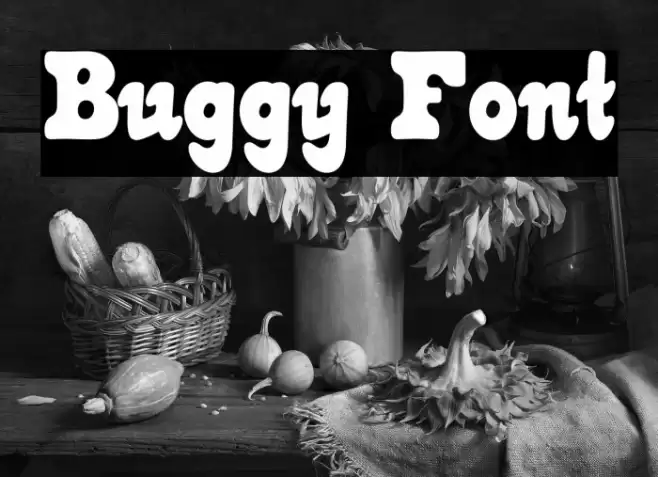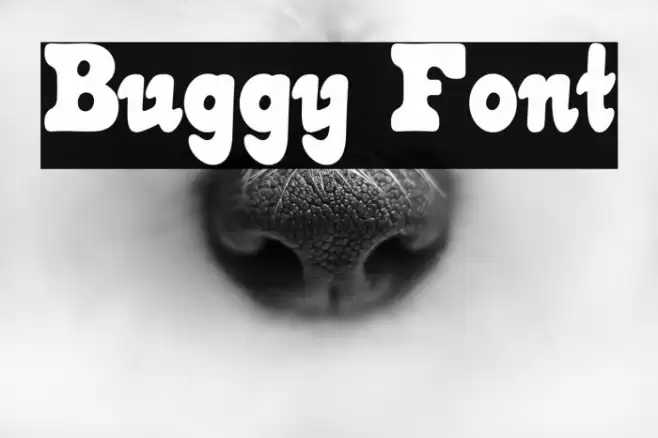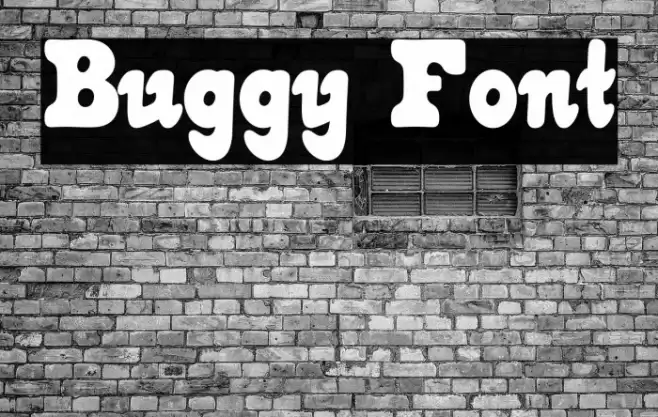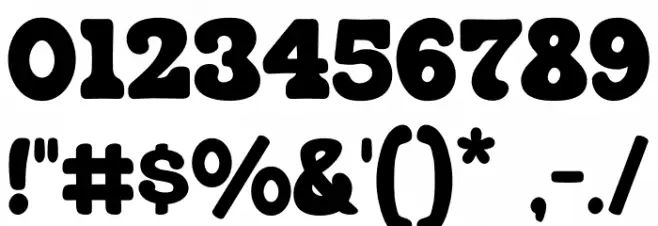
Buggy Font
This font features bold, rounded characters with a playful and whimsical style. The letters are thick and have a consistent weight throughout, giving them a strong presence. The rounded edges and bubbly appearance make it feel friendly and approachable. The numbers and special characters maintain this playful aesthetic, ensuring a cohesive look across all elements. The font's design is reminiscent of retro styles, yet it has a modern twist that makes it versatile for various applications. Its boldness ensures high readability, making it suitable for eye-catching designs.
A bold, rounded, and playful font with a retro-modern style from Regular fonts.
- Font: Buggy
- Proposed Projects: Ideal for children's books, playful branding, posters, and any design requiring a fun and approachable feel.
- Overall Style: Playful, Retro-Modern